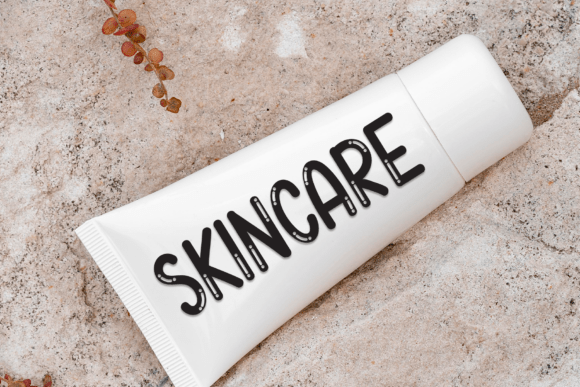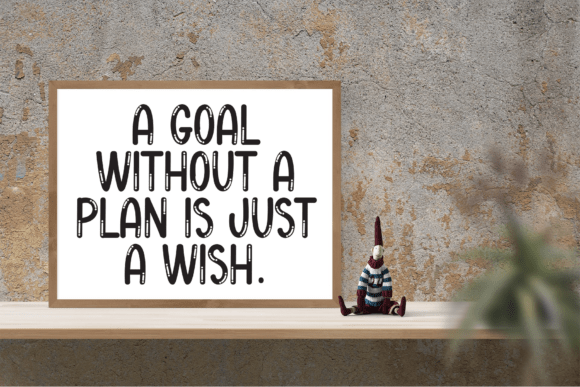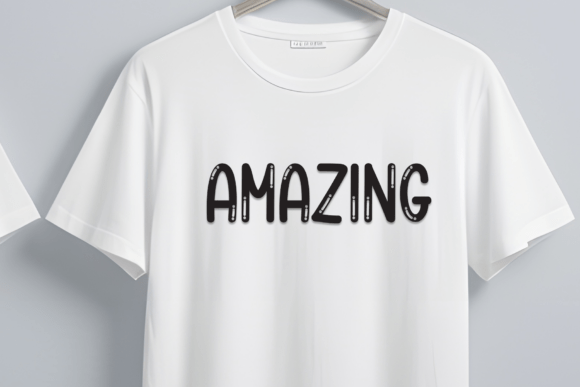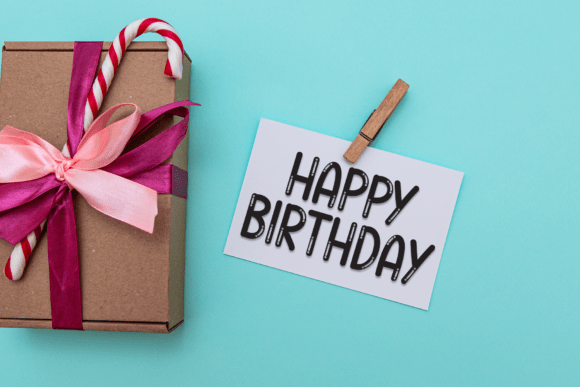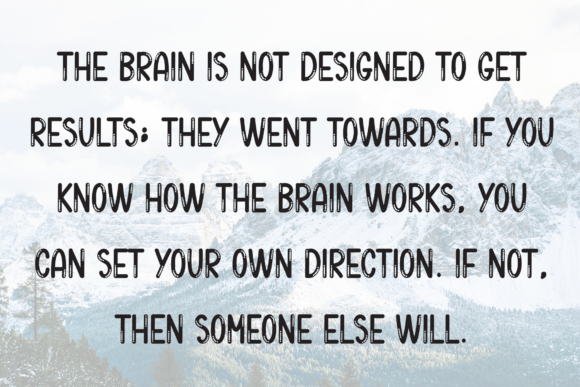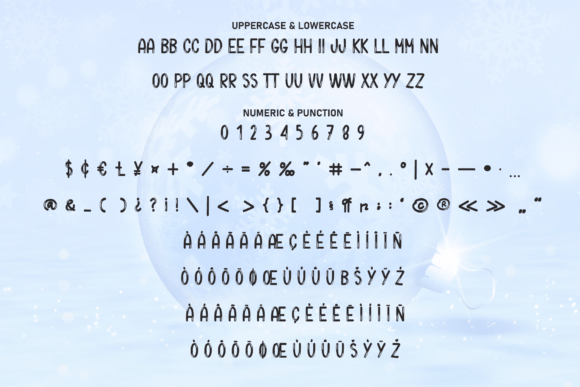
Bubble Snow Font: The Perfect Blend of Simplicity and Friendliness
In the world of typography, fonts play a crucial role in conveying the tone and personality of a brand or design. When it comes to creating a lasting impression, the right font can make all the difference. Introducing Bubble Snow Font, a casual and neat display font that combines simplicity with a friendly, approachable vibe. In this article, we’ll dive into the features and benefits of Bubble Snow Font, and explore how it can elevate your designs to the next level.
A Modern Handwritten Typographic Style
Bubble Snow Font boasts a modern handwritten typographic style that is both clean and polished. Its clean lines, balanced letterforms, and subtle rounded edges give it a unique charm that sets it apart from other fonts. The font’s design is carefully crafted to capture the essence of modern handwritten typography, making it perfect for designers and crafters looking for a fresh and contemporary look.
Key Features of Bubble Snow Font
- Clean Lines: Bubble Snow Font features clean lines that give it a crisp and modern look.
- Balanced Letterforms: The font’s letterforms are carefully balanced to ensure optimal readability and aesthetics.
- Subtle Rounded Edges: The subtle rounded edges add a touch of friendliness and approachability to the font.
- Versatile Style: Bubble Snow Font is versatile and can be used for a wide range of design applications.
Ideal for Various Design Applications
Bubble Snow Font is ideal for various design applications, including:
- Branding: Use Bubble Snow Font to create a lasting impression with your brand’s logo or tagline.
- Headlines: Add a touch of elegance and sophistication to your headlines with Bubble Snow Font.
- Packaging: Use Bubble Snow Font to create eye-catching packaging designs that stand out on store shelves.
- Digital Content: Add a warm and inviting touch to your digital content, such as blog posts, social media graphics, and email newsletters.
Benefits of Using Bubble Snow Font
So, why choose Bubble Snow Font for your design projects? Here are just a few benefits:
- Clarity: Bubble Snow Font delivers clarity and precision, making it easy to read and understand.
- Charm: The font’s friendly and approachable vibe adds a touch of charm to any design.
- Versatility: Bubble Snow Font is versatile and can be used for a wide range of design applications.
Tips for Using Bubble Snow Font
Here are a few tips for using Bubble Snow Font effectively:
- Pair it with Other Fonts: Experiment with pairing Bubble Snow Font with other fonts to create a unique and visually appealing design.
- Use it for Headlines: Use Bubble Snow Font for headlines and titles to add a touch of elegance and sophistication.
- Experiment with Colors: Try out different colors and color combinations to find the perfect match for your design.
In conclusion, Bubble Snow Font is a versatile and charming font that can add a warm and inviting touch to any design. Its modern handwritten typographic style, clean lines, and balanced letterforms make it perfect for designers and crafters looking for a fresh and contemporary look. With its clarity, charm, and ease of use, Bubble Snow Font is an excellent choice for branding, headlines, packaging, and digital content. So why wait? Download Bubble Snow Font today and take your designs to the next level!